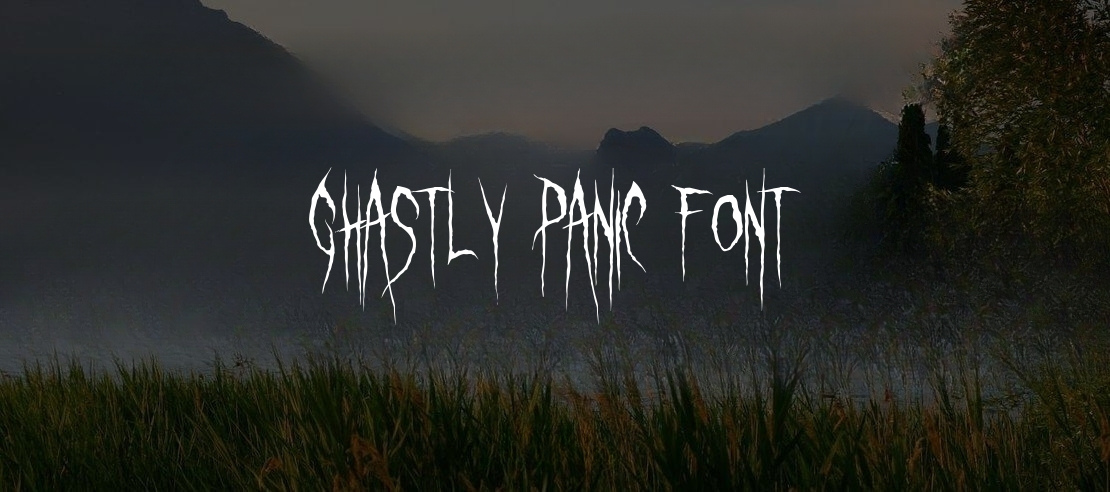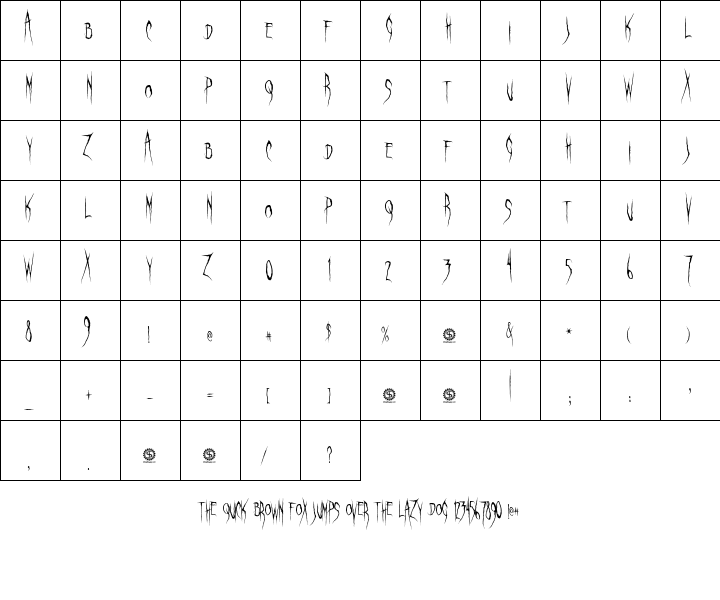
Ghastly Panic Font is a fancy typeface inspired by the gothic and horror genres. It’s perfect for creating spooky, creepy, or macabre designs. In this guide, we’ll show you how to use the Ghastly Panic typeface in your next project.
The ghastly Panic typeface has a complete set of characters containing Upper and lowercase letters, numbers, and punctuation. This typeface also supports international characters. This typeface is suitable for headings, invitation cards, logos, posters, and fashion designs. This typeface is similar to the death note font.
Creator of Ghastly Panic Font
This awesome and stunning typeface is created by an American typeface designer Chad Savage for the foundry Sinister Visions in 2005.
This font style is designed with an exclusive and regular style. This single attractive style is a mixture of many different characteristics, containing capital and small letters, number, special characters, glyphs, punctuations, symbols, and many language support.
| Name | Ghastly Panic Font |
| Style | Comic |
| Designer | Chad Savage |
| Foundry | Sinister Visions |
Is Ghastly Panic texture good for body text?
Yes, the Ghastly Panic typeface is good for body text.
Is Ghastly Panic typeface a Serif?
No, the Ghastly Panic typeface is not a Serif font. It is a fancy typeface.